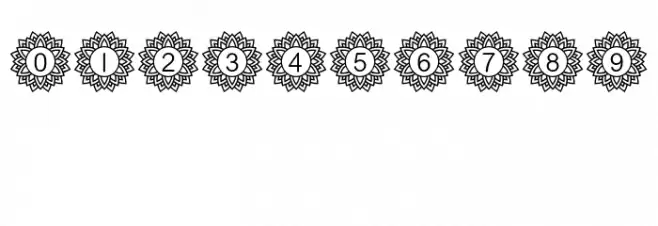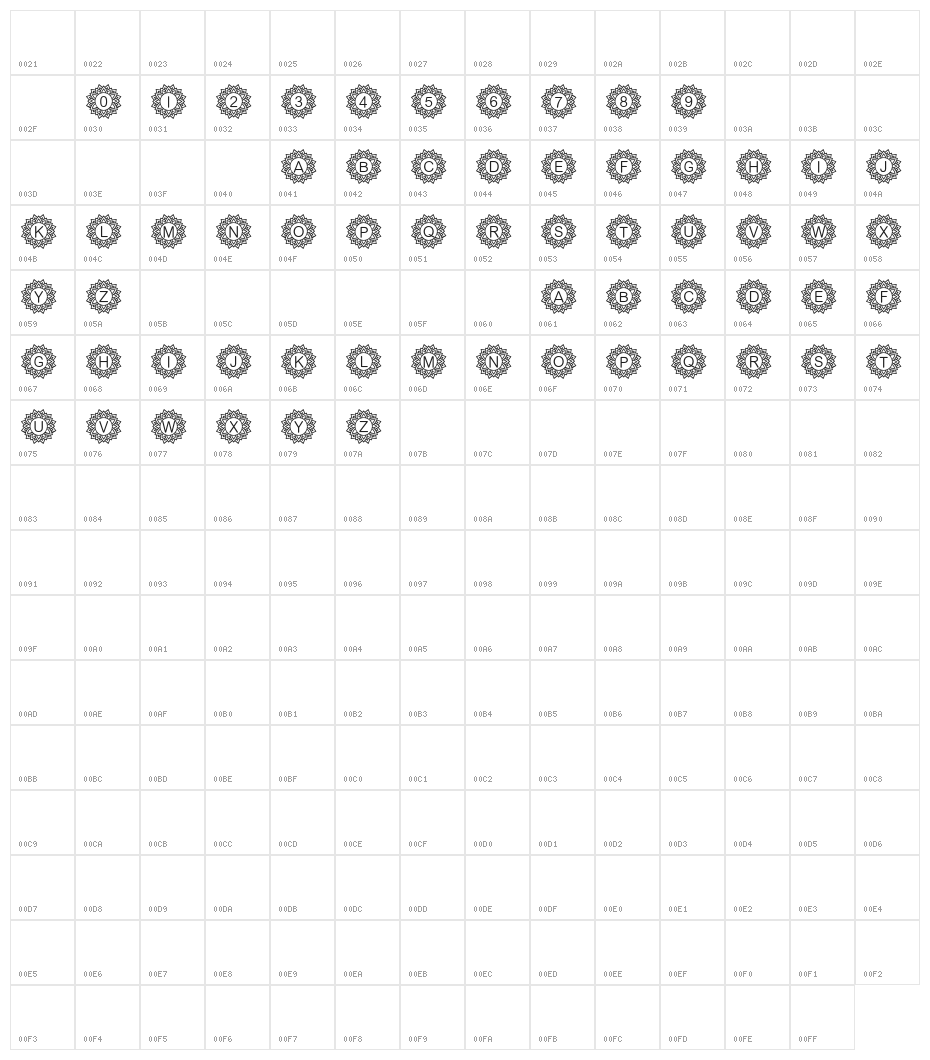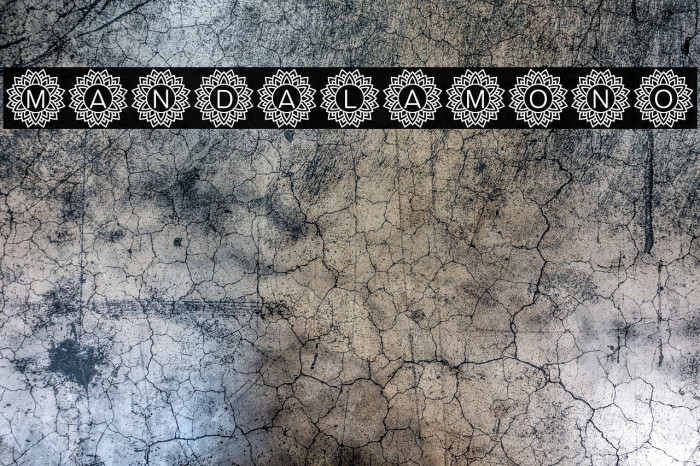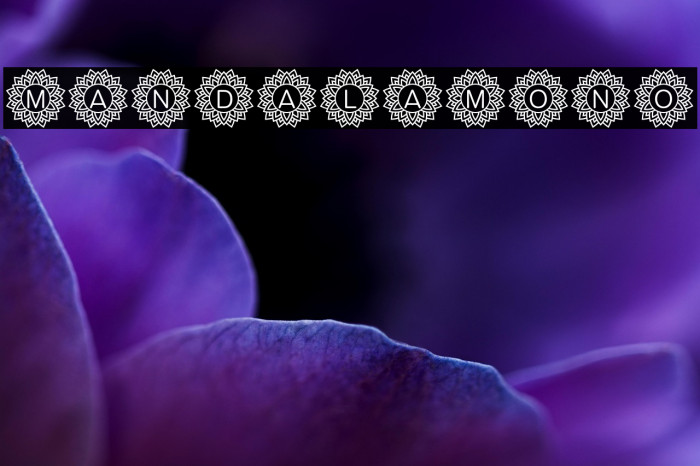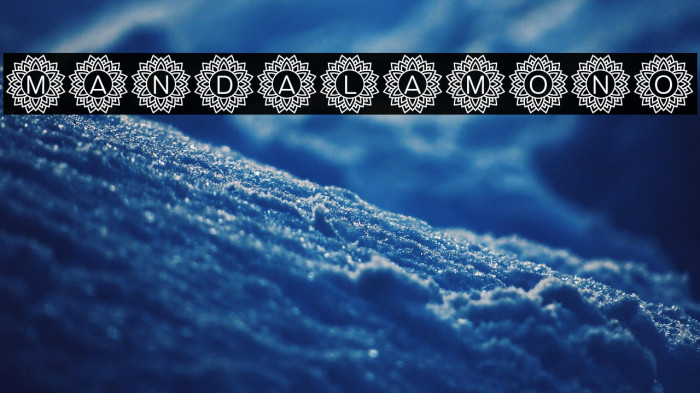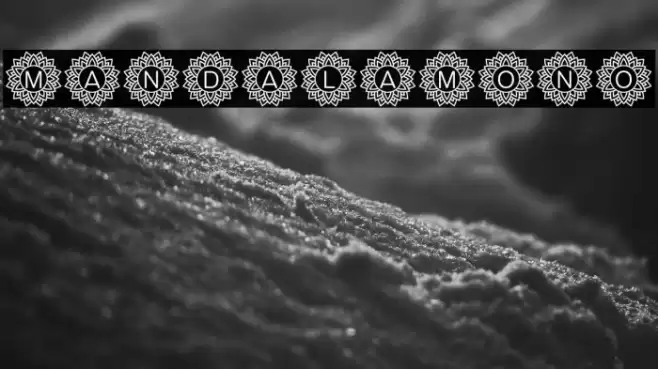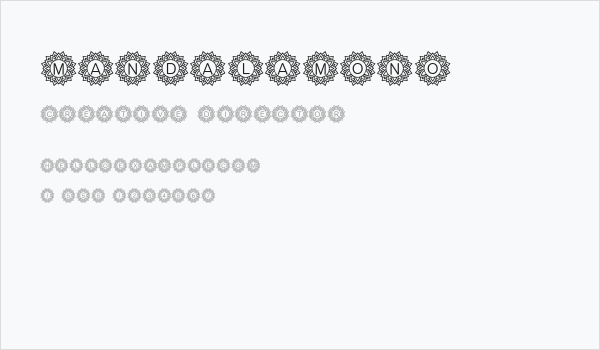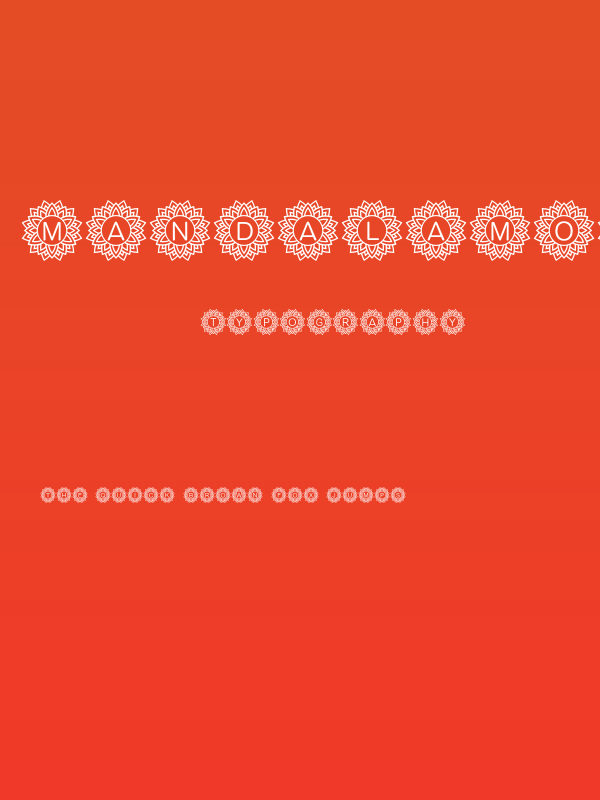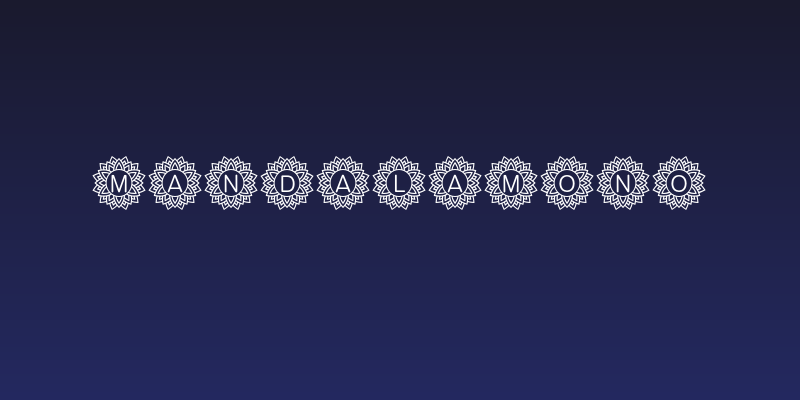
Mandala_Mono Font
Mandala_Mono Description
This font features a unique decorative style where each character is encased within an intricate mandala design. The letters and numbers are bold and clear, providing a striking contrast against the detailed background. The mandala patterns add an artistic flair, making each character stand out as a piece of art. The overall design is symmetrical and balanced, ensuring that the text remains legible despite the ornate embellishments. This font is perfect for projects that require a touch of elegance and creativity, such as invitations, posters, or branding materials.
| Proposed Projects | Ideal for invitations, posters, branding materials, and artistic projects. |